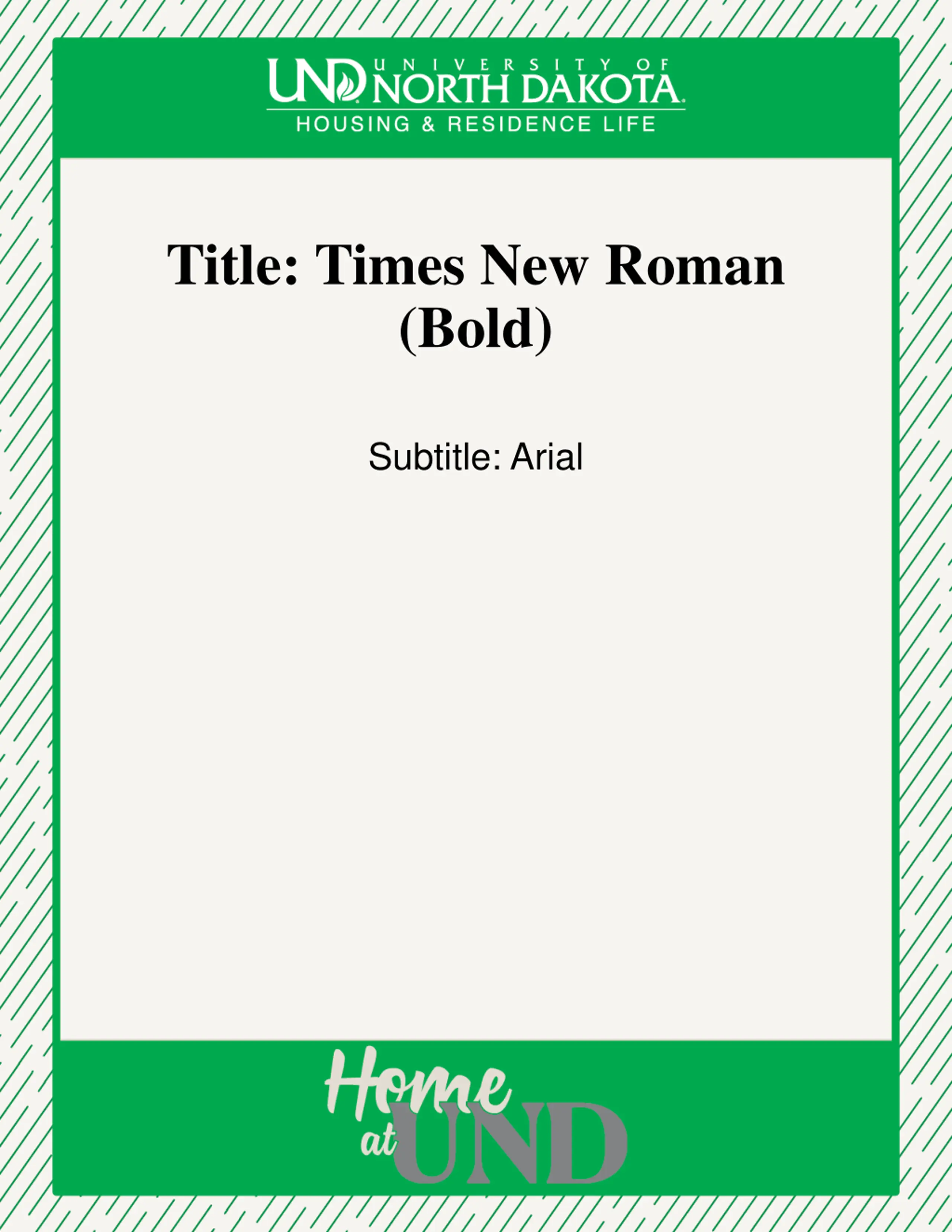
Elegant Typeface Combo for Your Presentation
Explore the captivating mix of Times New Roman (Bold) for the title and Arial for the subtitle in this visually appealing presentation template. Enhance your design with this classic yet modern font pairing. Find inspiration for your next project with these stylish typography choices.
Title: Times New Roman (Bold) Subtitle: Arial